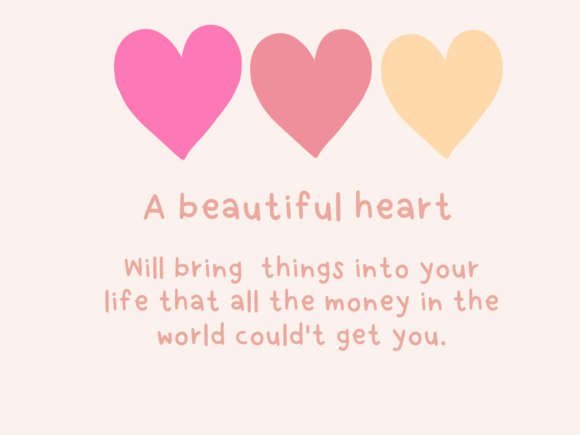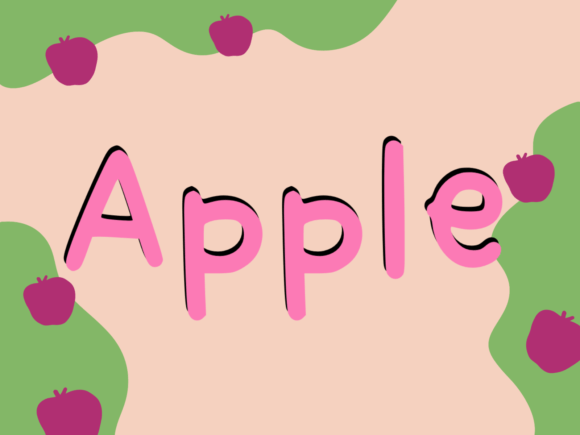
Discover the Charm of Apple Font: A Cute Handwriting Font for Crafty Ideas
Are you a designer or crafter looking for a font that adds a touch of personality to your projects? Look no further than Apple Font, a beautiful and versatile handwriting font that’s perfect for a wide range of crafty ideas. In this article, we’ll explore the features and benefits of Apple Font, and show you how to make the most of this adorable font in your designs.
What is Apple Font?
Apple Font is a cute handwriting font that’s designed to bring a touch of warmth and personality to your designs. With its beautiful and well-balanced characters, Apple Font is suitable for a wide range of crafty ideas, from DIY crafts and scrapbooking to digital graphics and branding.
Key Features of Apple Font
- Beautiful and well-balanced characters: Each character in Apple Font is carefully crafted to ensure that it’s both aesthetically pleasing and easy to read.
- Cute and playful feel: Apple Font has a distinctly playful and charming feel that’s perfect for crafty projects and designs.
- Versatile: Apple Font is suitable for a wide range of projects, from digital graphics and branding to DIY crafts and scrapbooking.
- Easily readable: Despite its playful feel, Apple Font is still easy to read, making it perfect for use in body text and other applications where legibility is important.
Benefits of Using Apple Font
So why choose Apple Font for your next project? Here are just a few benefits of using this adorable font:
- Adds personality to your designs: Apple Font is a great way to add a touch of personality and whimsy to your designs, setting them apart from more generic fonts.
- Perfect for crafty projects: Apple Font is ideal for crafty projects like DIY crafts, scrapbooking, and other handmade endeavors.
- High-quality: Apple Font is a high-quality font that’s designed to produce crisp, clear results in a wide range of applications.
Using Apple Font in Your Designs
So how can you use Apple Font in your designs? Here are a few ideas to get you started:
- DIY crafts: Apple Font is perfect for use in DIY crafts like scrapbooking, card making, and other handmade projects.
- Digital graphics: Use Apple Font in digital graphics like social media graphics, blog posts, and other online applications.
- Branding: Apple Font can add a touch of personality to your brand, making it more approachable and relatable.
- Sign making: Apple Font is a great choice for sign making, whether you’re creating signs for a business or a personal project.
Tips for Getting the Most Out of Apple Font
Here are a few tips for getting the most out of Apple Font:
- Experiment with different sizes and colors: Apple Font looks great in a wide range of sizes and colors, so don’t be afraid to experiment and find the combination that works best for your project.
- Pair with other fonts: Apple Font pairs well with a wide range of other fonts, so try combining it with other fonts to create a unique look.
- Use in combination with images: Apple Font looks great when used in combination with images, so try incorporating it into your designs along with photos, illustrations, and other graphics.
Apple Font is a beautiful and versatile handwriting font that’s perfect for designers and crafters looking to add a touch of personality to their projects. With its beautiful and well-balanced characters, Apple Font is suitable for a wide range of crafty ideas, from DIY crafts and scrapbooking to digital graphics and branding. Whether you’re a seasoned designer or just starting out, Apple Font is a great choice for anyone looking to add a little charm and whimsy to their designs.